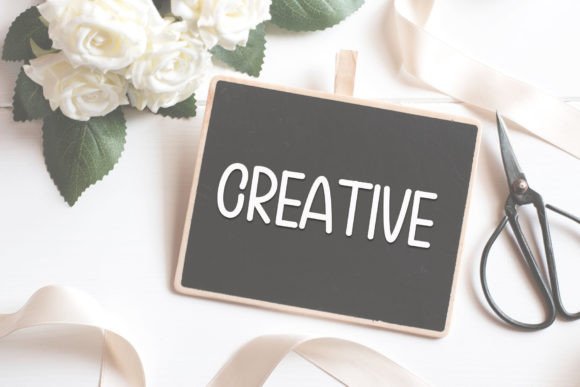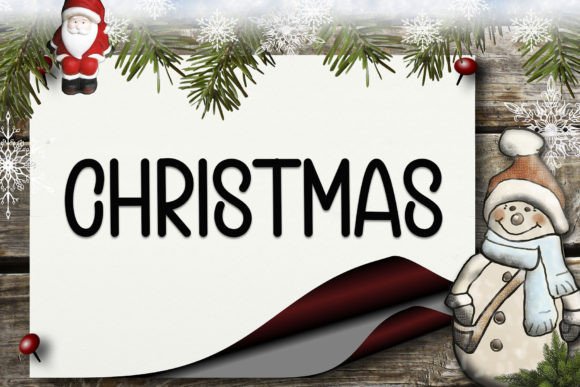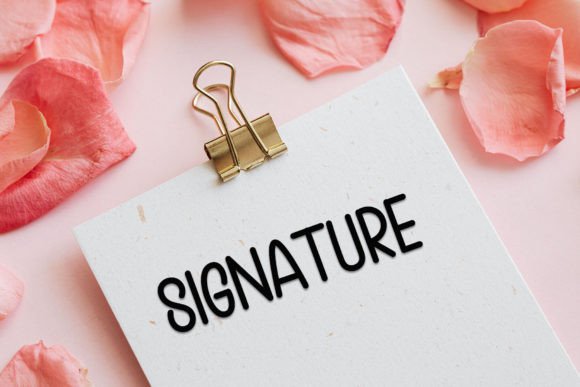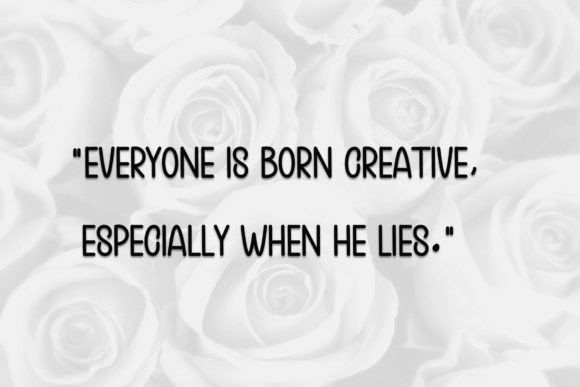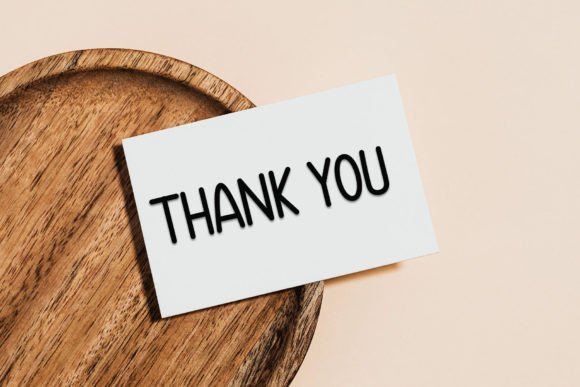
The Perfect Recipe for Design: Introducing Baking Font
Do you ever find yourself lost in a world of ideas, scribbling notes and brainstorming concepts until the perfect design finally comes together? That’s exactly what happened for us when we stumbled upon the Baking Font – a delicate, elegant, and flowing handwritten font that perfectly captures the essence of creativity.
Baking Font is a beautiful and well-balanced typeface designed to complement a wide range of designs, from food blogs to wedding invitations, and everything in between. Its purpose is to add a touch of warmth and personality to your projects, making it a valuable asset for designers who want to stand out from the crowd.
Baking Font Key Features
- Unique Characteristics: The font features a unique, hand-drawn style with a mix of serif and sans-serif elements, giving it a distinctive and eye-catching appearance.
- Kerning and Ligatures: The font includes advanced kerning and ligature pairs, ensuring smooth and natural text flow, even at smaller font sizes.
Baking Font Review
As a designer, I was excited to try out the Baking Font, a font specifically designed for baking-related content. Here’s my honest review:
✨ The Baking Font has a charming, whimsical feel that’s perfect for baking-related projects. The font is highly customizable, allowing users to adjust the color, size, and style to fit their needs.
✨ The font is also very legible, making it easy to read, even at small font sizes. This is especially important for recipes and cooking instructions where clarity is key.
✨ The font has a wide range of weights and styles, from light and delicate to bold and playful. This gives users a lot of flexibility when creating their designs.
⚠️ One major limitation of the Baking Font is its limited character set. While it includes a good selection of baking-related symbols and icons, it’s not as comprehensive as some other fonts.
⚠️ The font also doesn’t include any support for non-English languages, which may be a problem for users who need to create content in multiple languages.
Overall, I’m impressed with the Baking Font. While it has some limitations, its unique design and high level of customization make it a great choice for baking-related projects. If you’re looking for a font that’s both functional and visually appealing, the Baking Font is definitely worth checking out.
- Charming, whimsical design
- Legible at small font sizes
- Wide range of weights and styles
- Limited character set
- No support for non-English languages
Tips for Getting the Most Out of Baking Font
Here are some tips to get the most out of Baking Font:
- Combine Baking Font with other design elements, such as images and graphics, to create a cohesive look.
- Use Baking Font to highlight important information or create a focal point in your design.
Common Use Cases for Baking Font
Baking Font is commonly used in the following scenarios:
- Culinary branding and marketing materials.
- Food and beverage packaging design.
- Restaurant and cafe signage and menus.